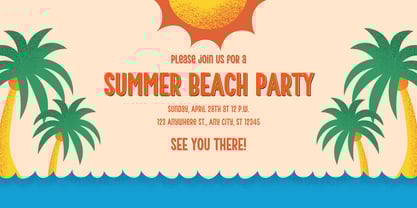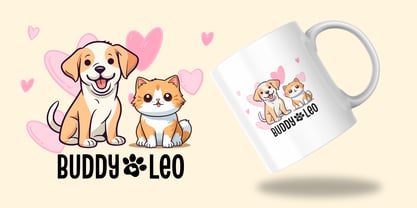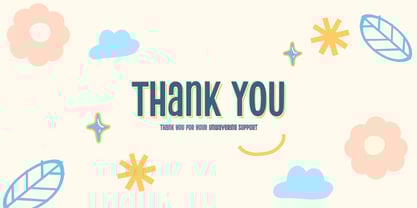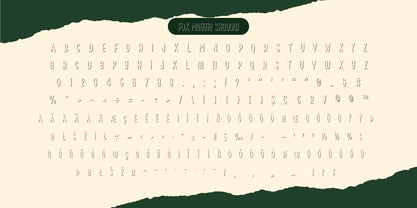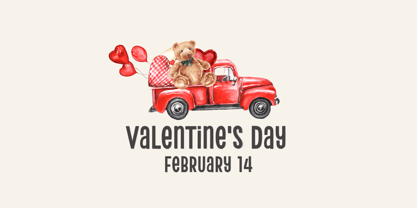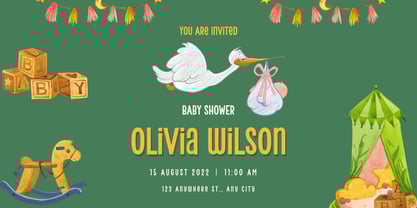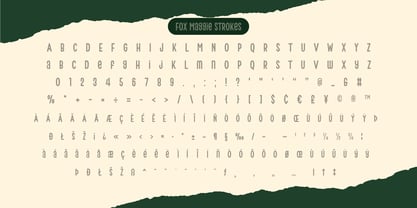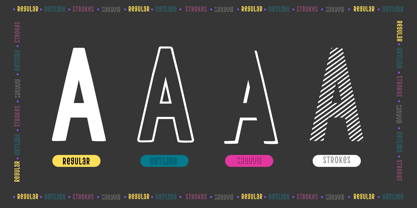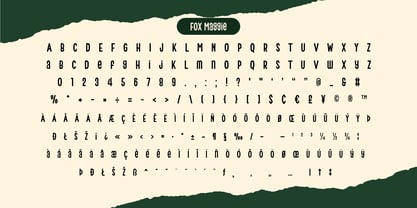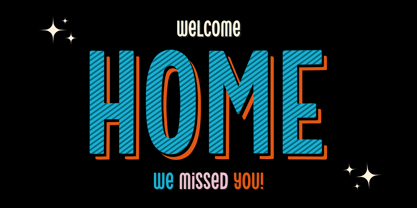
Fox Maggie
by Fox7
The Fox Maggie Font Family was designed by Rattana Rattanawan and published by Fox7. Fox Maggie contains 4 styles and family package options.
Fox Maggie, a playful and versatile font family designed to bring charm and creativity to your projects! This font offers 4 unique styles: Regular, Outline, Shadow, and Strokes, allowing endless possibilities for your design needs. Perfect for kids' themes, classroom posters, handmade crafts, or any creative projects, Fox Maggie adds a vibrant, fun-filled personality to your work. Whether you're looking for bold simplicity or a touch of texture, this font has you covered!